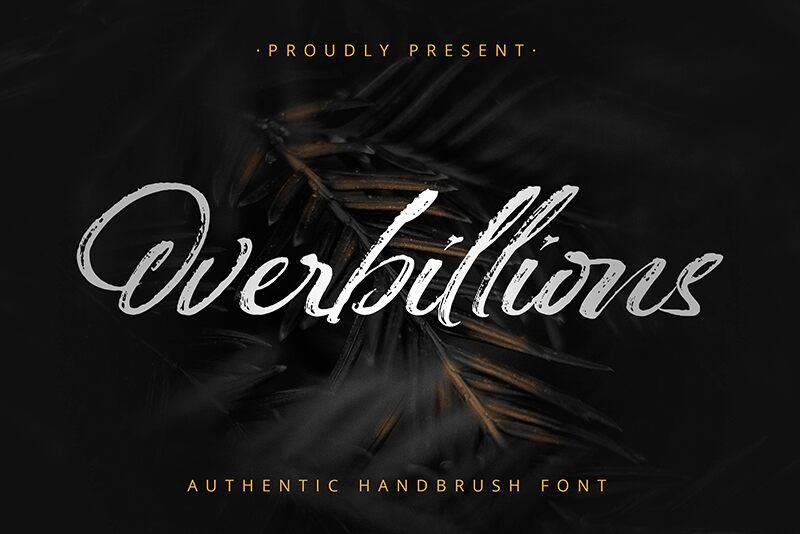
Overbillions, an authentic handbrush font by Almarkhatype, offers a unique blend of elegance and playfulness.
Its semi-light weight lends itself well to projects seeking a delicate touch, such as wedding invitations, greeting cards, or feminine branding materials. With its organic strokes and natural flow, Overbillions exudes a sense of authenticity and warmth that is perfect for handmade crafts or artisanal products.
Whether used for packaging designs or social media graphics that require a touch of whimsy, Overbillions adds a distinctive charm to any project.